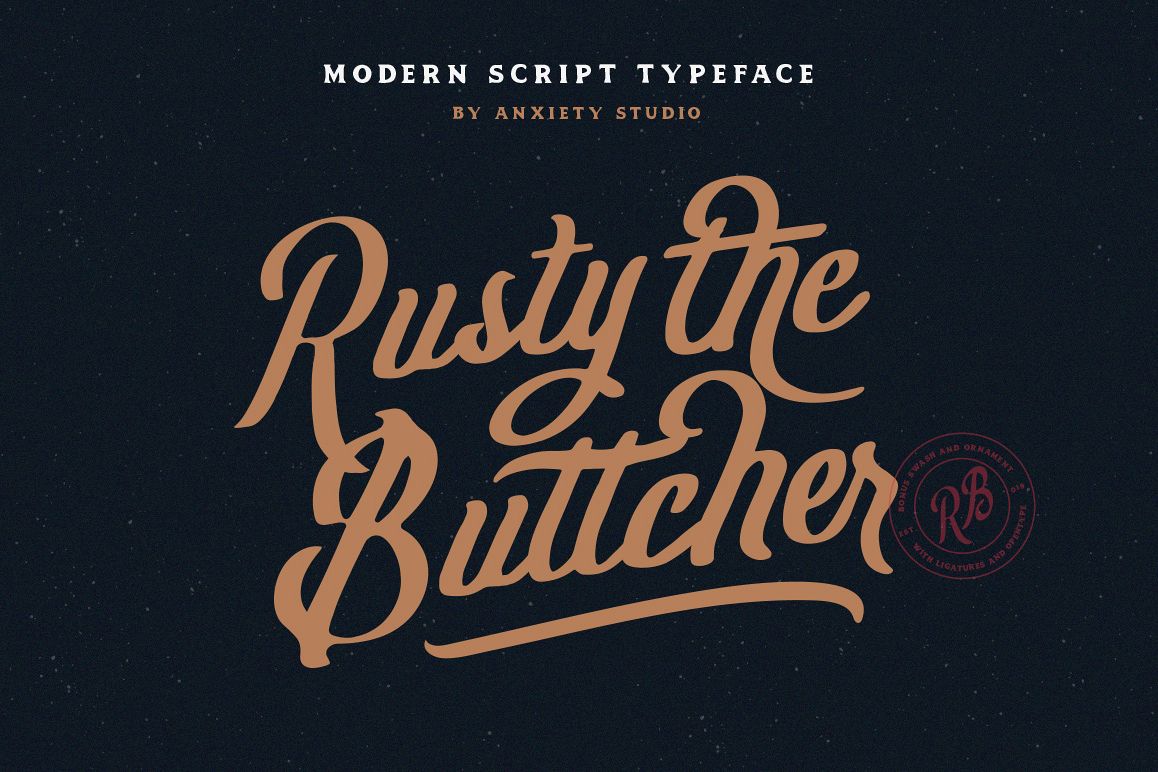
Rusty The Buttcher Modern Script Typeface
• Rusty The Buttcher is Modern script typeface, bold, clean and rough. There are so many variations on each character. Include Opentype stylistic alternates. You are able to create so many different typographical layouts easily and quickly. Make sure you use OpenType program and simply open Glyph Palette to access all of the glyphs.
• This font is suitable for t-shirts, signage, logos, headlines, branding, packaging,clothing apparel, posters, letterhead, greeting cards,quotes, will add a beautiful touch of handmade love to your projects etc. That are combined into one pretty package. You will see this combination more in badges logo.
Rusty The Buttcher Typeface equipped with :
• Uppercase,lowercase,numeral,punctuation & Symbol
• Stylistic alternates
• Stylistic Set01 - Stylistic Set03
• Bonus Swash
• Bonus Ornament